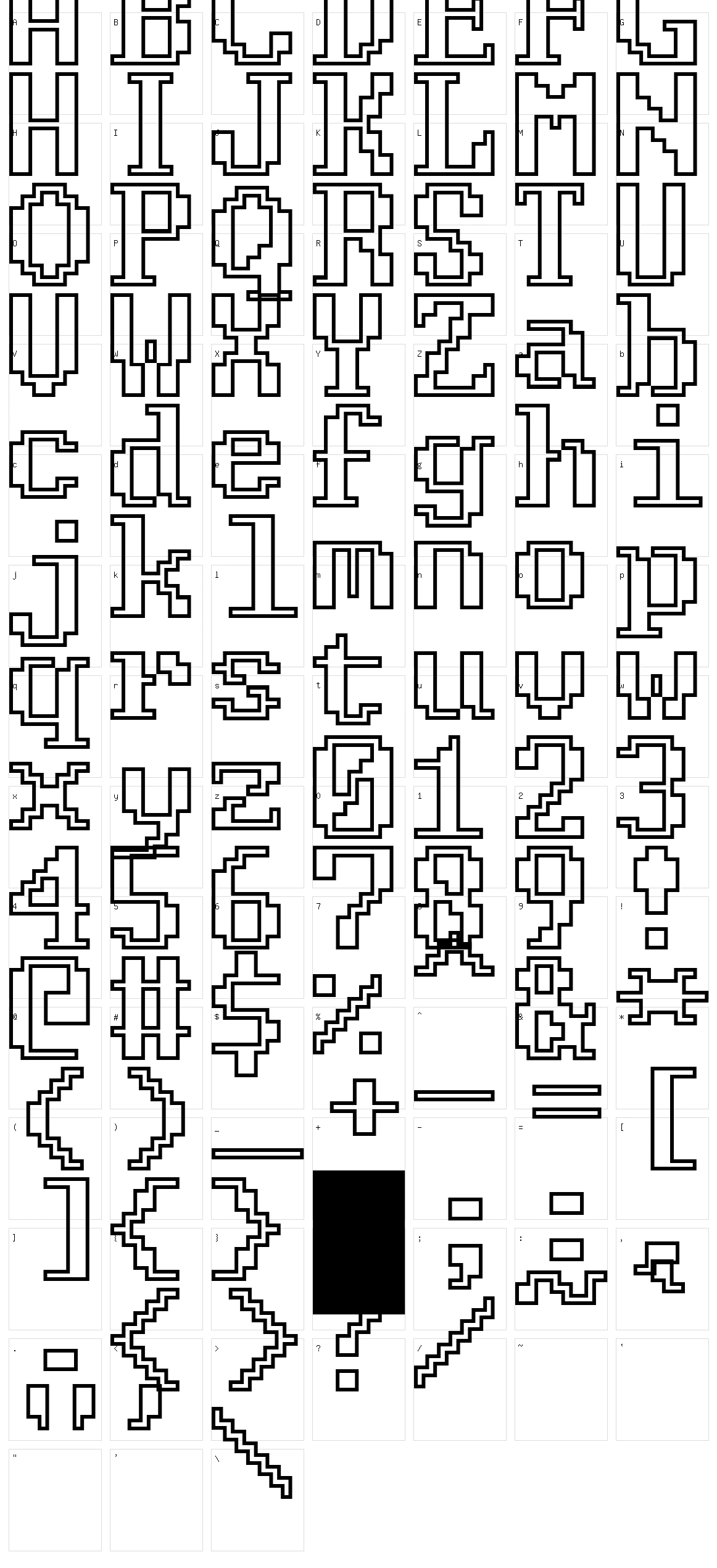
FixCystNeon
Category: LCD & Futuristic
ÿþFixCystNeon is © 2010 by bobistheowl for Metaphase Brothel Graphix. All rights reserved. This font was made using MS Paint and ScanFont 3.13. FontLab Studio5 was used to adjust the UPM size. The design of this font is based on the IBM system font Terminal, c. 1981. Terminal was the default font for Notepad until Windows Millenium Edition, and it is still used in DOS Command Prompt.
FixCystNeon is one of four weights in the FixCyst family. FixCyst, as yet uncompleted, is the same as FixCystNeon, but solid, without the inline contours. It will also contain the remaining glyphs from this character set, (box drawing, happy faces, card suits, Greek letters, extended math, etc.).
The remaining two weights, NotepadClassic and DOSBoot, have glyphs 40% as large as those used in FixCyst and FixCystNeon. NotepadClassic is black text, and DOSBoot is white text on black background. These more conventionally sized fonts allow for smaller text sizes than those available in the FixCyst fonts. All fonts in the FixCyst family are monospaced, and the orientation of all glyphs, (ie: ascenders, descenders, and spacing), is as per the original source graphics. For most glyphs, all spacing is on the right side. Some letters, such as lower case i and l, have spacing on both the left and the right, by design. The baseline is higher than for other fonts, but if I had adjusted this, the white text on black background variant would have been impossible.
This is my first alphabet font, (not including Apoux, which is more of a letterbat), and I've been working on it off and on for about two years. Before I could make this font properly, I needed to acquire additional technical knowledge. I learned Windows with the Windows '95 operating system, and my first computer had Windows ME, so the basic design of this font is very familiar to me, and I hope many of you will recognize it as well. I think it looks best with bright green text on a black background, which gives it a retro pre-Windows computer terminal look.
Terminal is, perhaps, the first digital typeface. It was designed to be read at small point sizes. I've never seen it displayed at larger than 14 points. It's also a system font that has never before been available in True Type format. Each glyph can be defined within a 12x8 matrix, which includes the spacing, ascenders, and descenders. In fact, the source graphic I used for the font had the glyphs at exactly that size. For the Neon weight, the source graphic was increased to twenty-five times its' original size. In the source graphics, there is an eight pixel external perimeter surrounding a white interior.
Editing of the font with ScanFont was time consuming, but not difficult. With guidelines enabled, the more widely spaced lines defined the width of the internal white contour, which is slightly larger than the black perimeter, (nine pixels for the interior, eight pixels for the perimeter in the graphics imported into the font). In test versions, any small errors were noticeable when the font was displayed at eight point size. The copyright glyph was improved as much as was possible, but it still looks a bit off at the smaller point sizes.
The copyright, Euro symbol and upper and lower case Latin O with slash are not part of the original 254 glyph character set. I drew them in the same style as the other glyphs, within a 12x8 matrix before expanding the images twenty five times, and hollowing the interior.
This font contains a black glyph in position 124, (the bar key, (upper case of the backslash key, above the Enter key), which is used to create a black space between words, at the end of lines, or between paragraphs. Please note the limitations of this feature, and the procedure to create text with a black background. It's a bit complicated, but not difficult to do. The space bar is used between words, as usual, for text on a white background.
FixCystNeon has been designed for use with both black text colour, and with white or coloured text on a black background. At certain point sizes, (6, 8, 11, 12, 14, 18, 20, 24 or 26 points), white or coloured text can be seamlessly displayed on a black background, but at other point sizes, (9, 10, 16, 22, 28, 36, 48, and 72 points), small slivers of white will appear at the top, bottom, or right side of the black spacer glyph. This is caused by rounding of numbers in the DPI pixel values at the screen and print levels. It is beyond my abilities to fix this problem for those point sizes, If you know a solution to this enigma, please let me know, and I'll upgrade the font. There are no 'sliver' problems when using the black text colour.